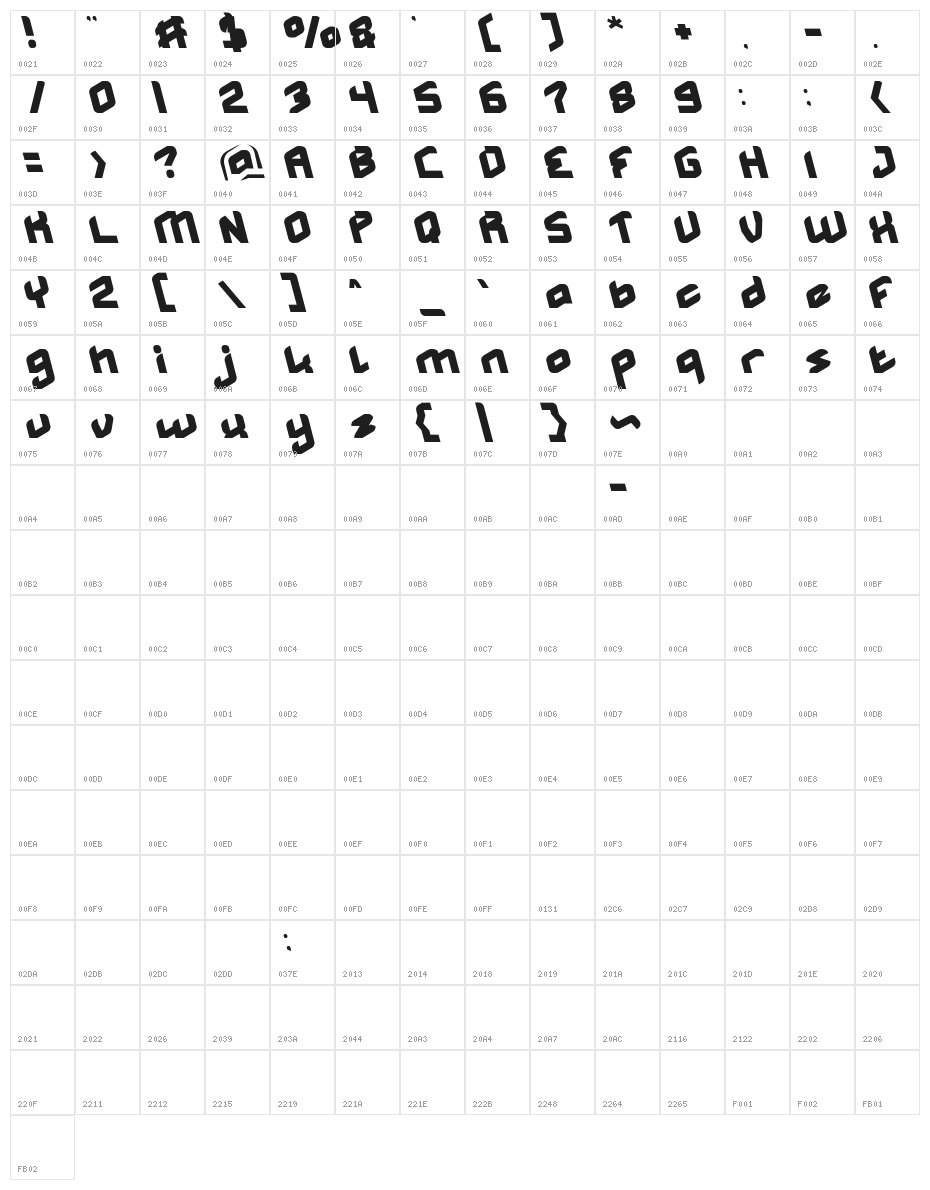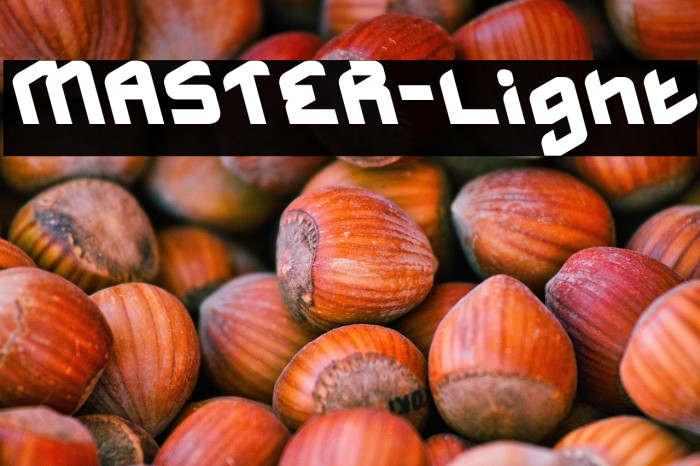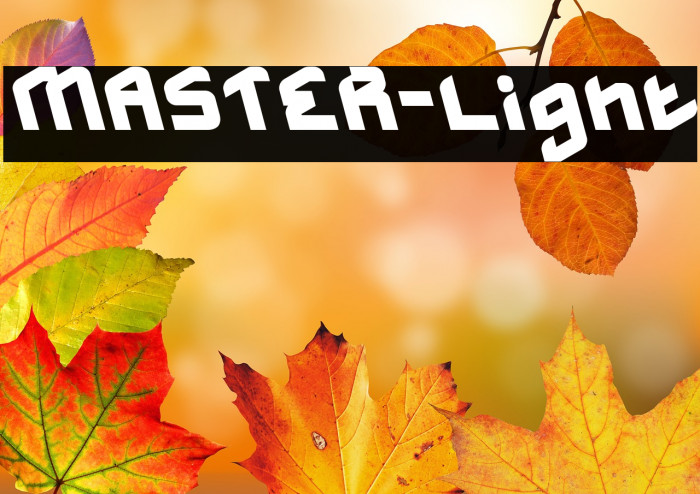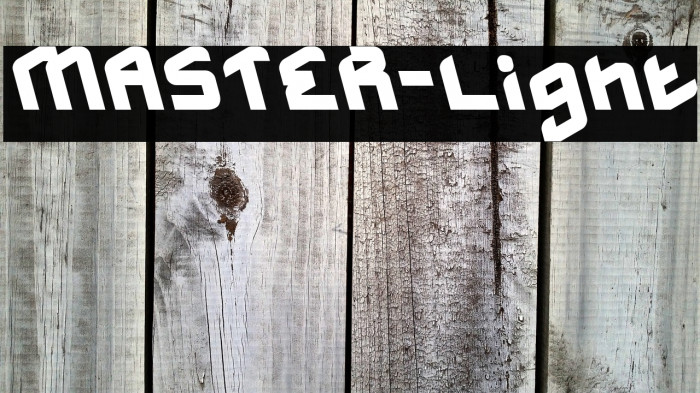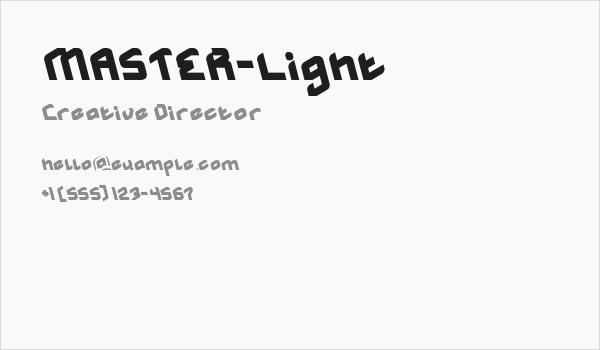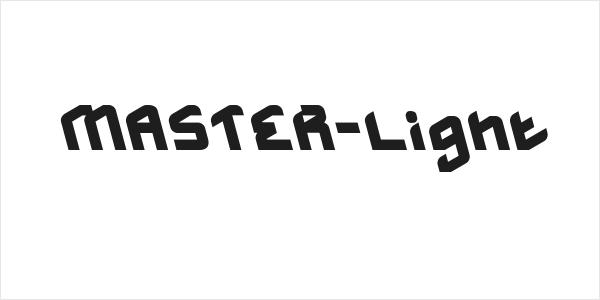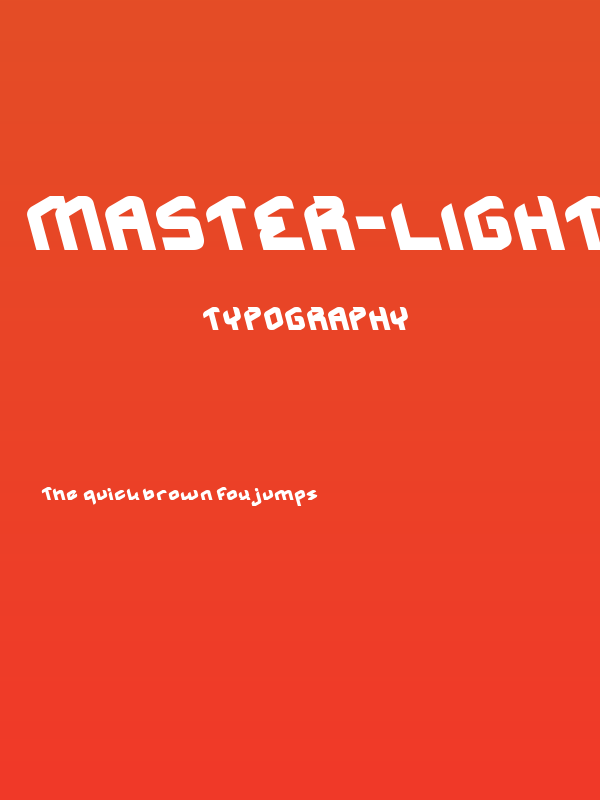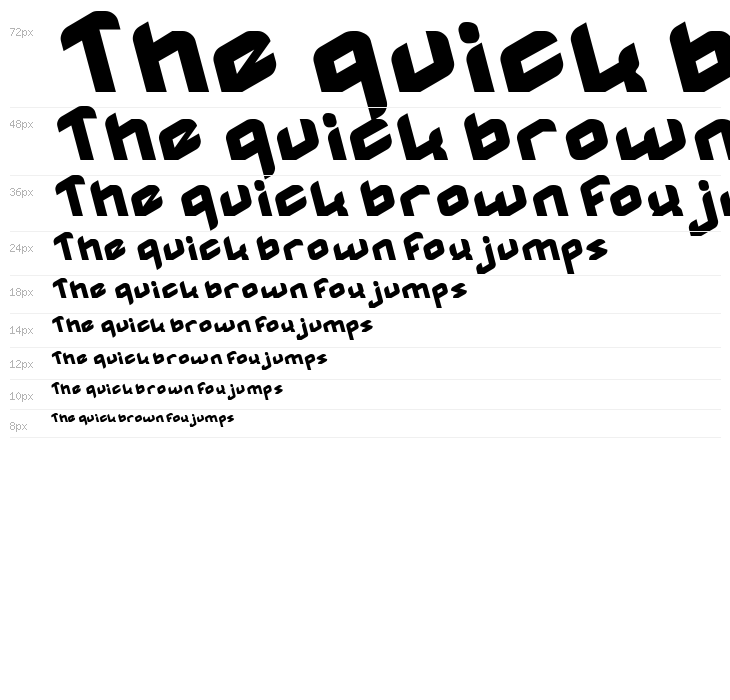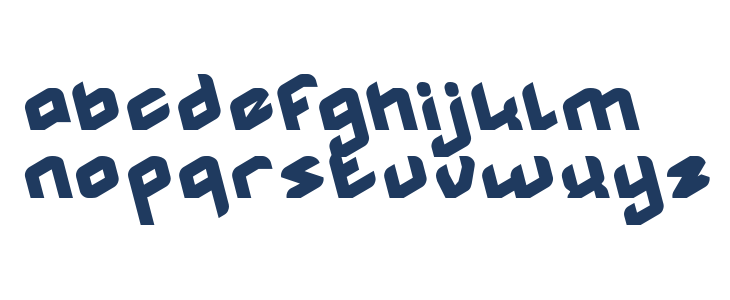
MASTER-Light Font
MASTER-Light Description
This font features a bold and angular design, characterized by its geometric and blocky letterforms. The uppercase and lowercase letters maintain a consistent style, with sharp edges and a slightly futuristic appearance. The numbers and special characters follow the same design principles, ensuring uniformity across all glyphs. The font's unique style makes it stand out, with a modern and edgy vibe that is both eye-catching and distinctive. Its boldness and angularity suggest a sense of strength and stability, making it suitable for impactful design projects.
| Proposed Projects | Ideal for branding, posters, video game titles, and any project requiring a modern and bold aesthetic. |